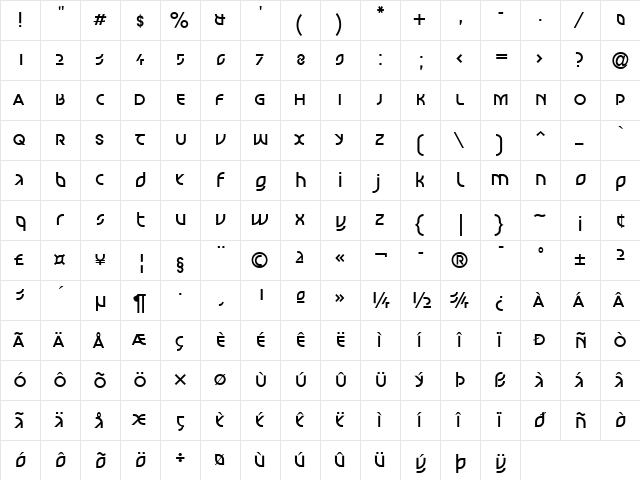
LTScott Mars Regular
Design Context for LTScott Mars Typeface
LTScott Mars offers clean, dependable letterforms without strong stylistic allegiance, making it a practical choice for designers who need flexibility.
Pro Tip: Use LTScott Mars in both headline and body roles to test its range before committing to a single application.